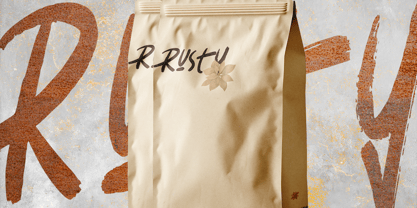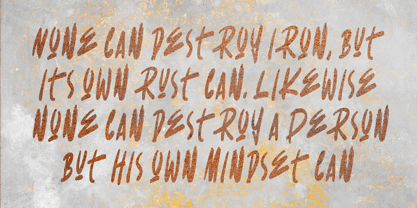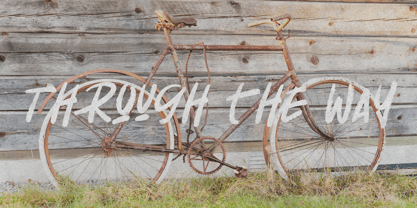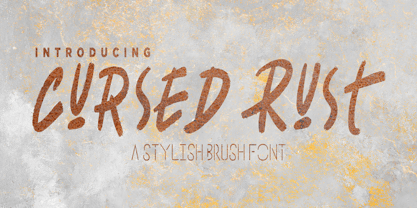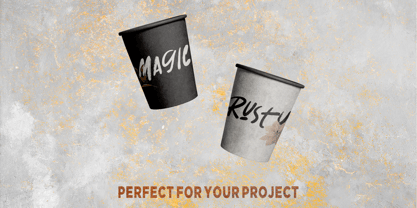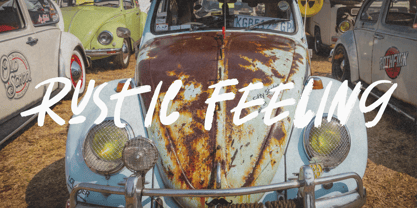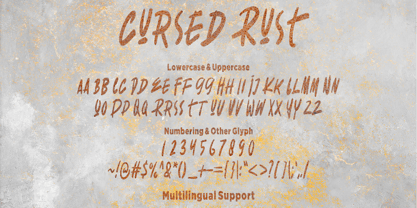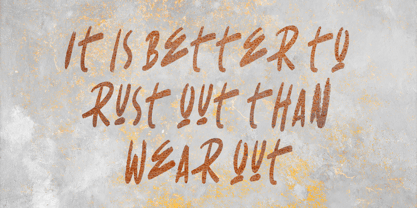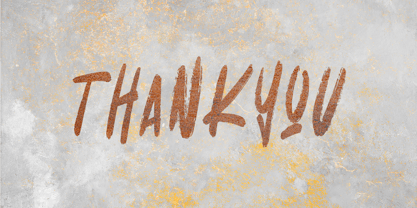
Cursed Rust
Introducing Cursed Rust, a bold and edgy stylish brush font that brings a rugged, handcrafted feel to your designs. Perfect for projects that need a mix of grunge, urban style, and artistic flair, this font is great for logos, posters, branding, merchandise, social media, and more!
✅ Handcrafted Brush Style – Gives a raw and energetic look.
✅ Versatile Use – Ideal for horror, streetwear, gaming, and artistic designs.
✅ Multilingual Support – Covers a wide range of characters for global use.
🔥 Edgy & Distinctive – A perfect balance of grunge and style for standout designs.